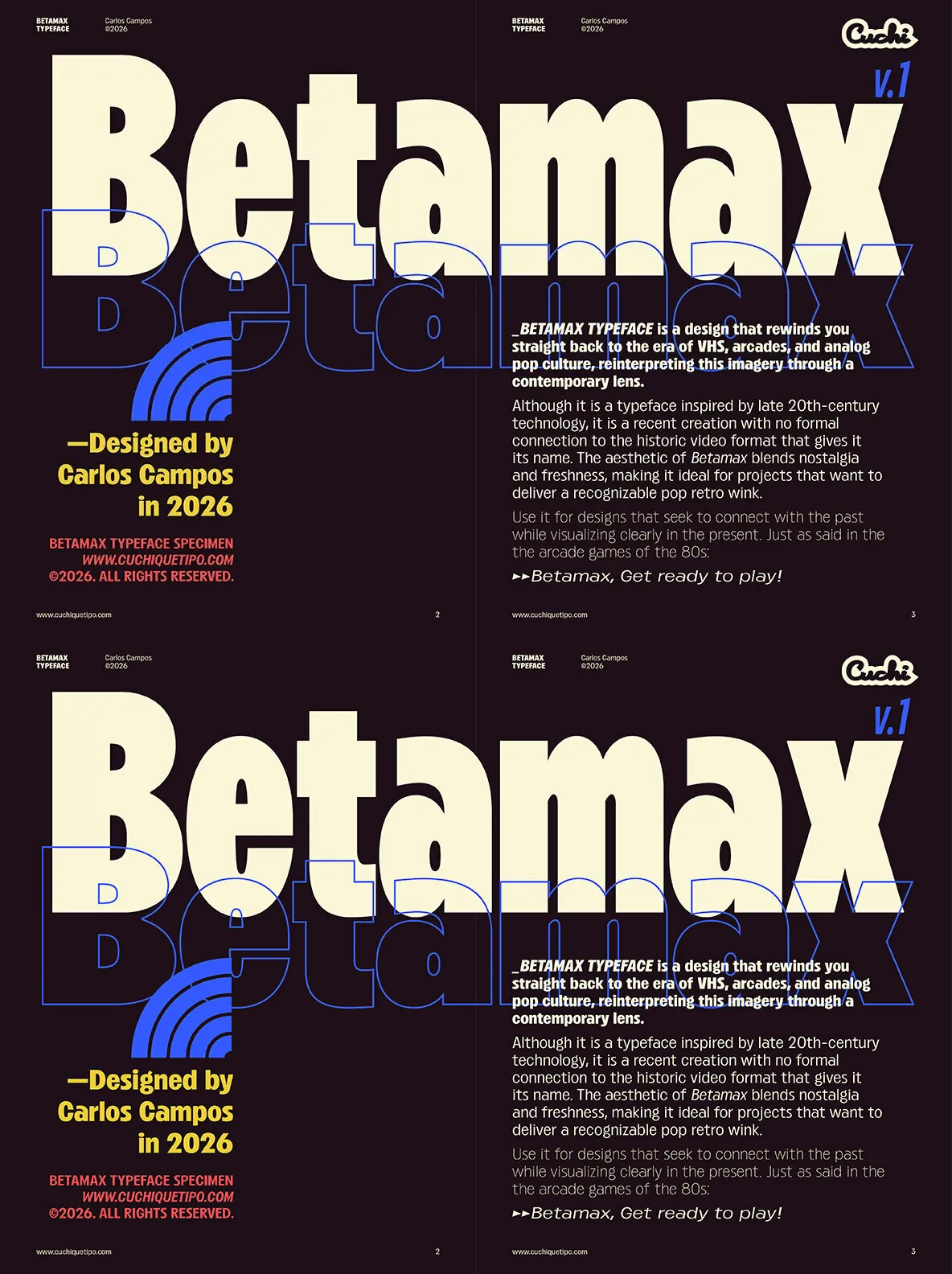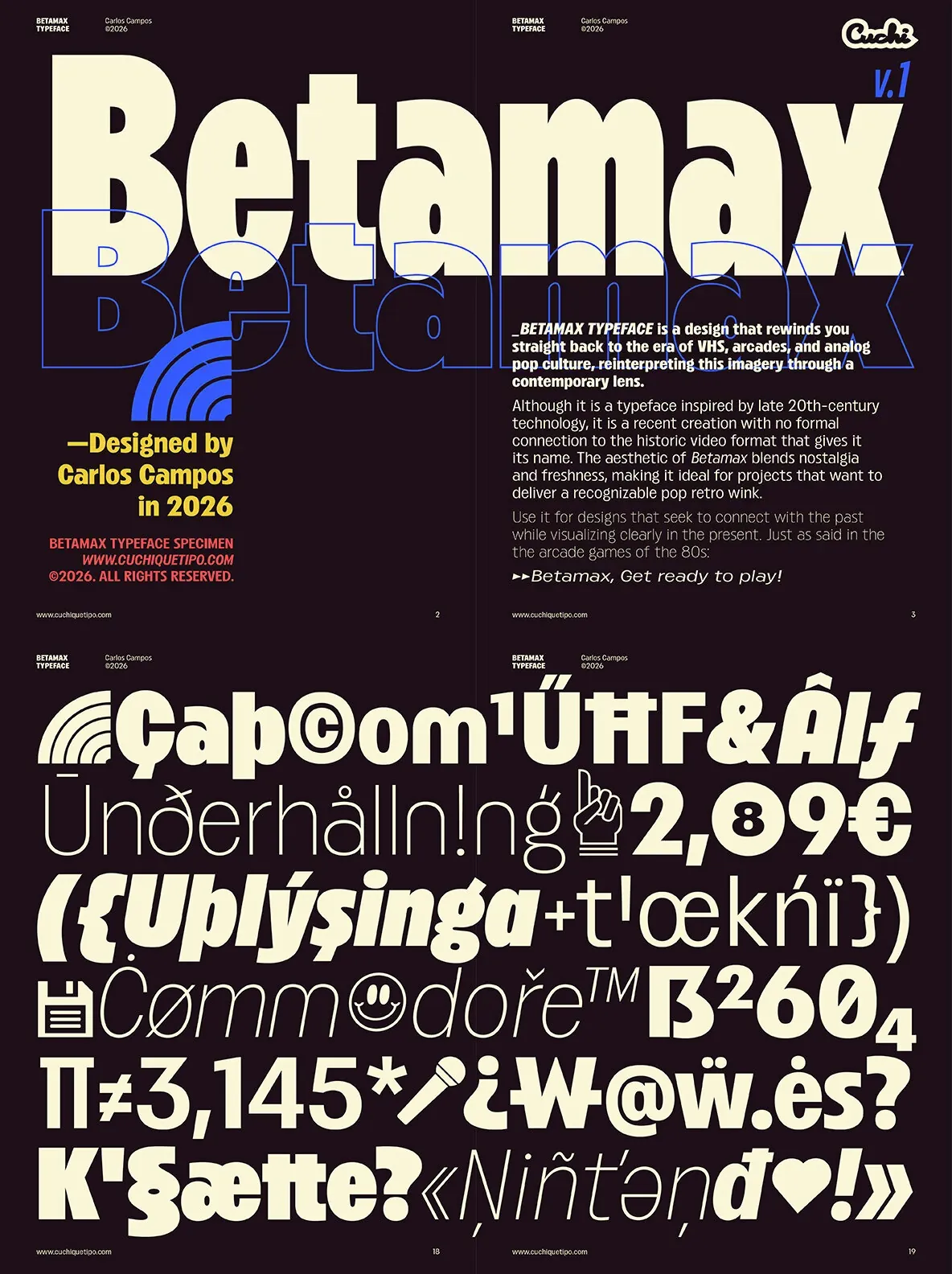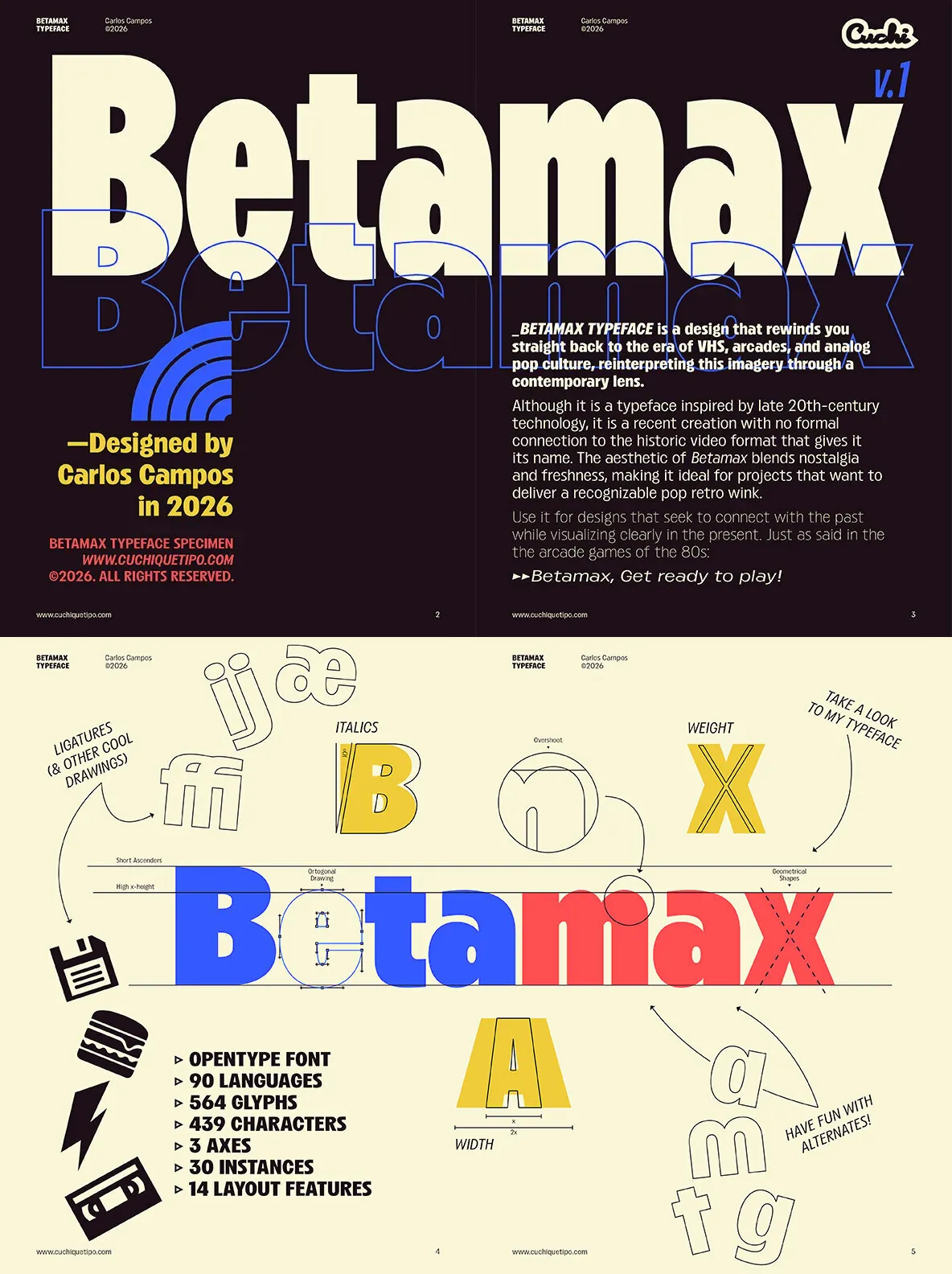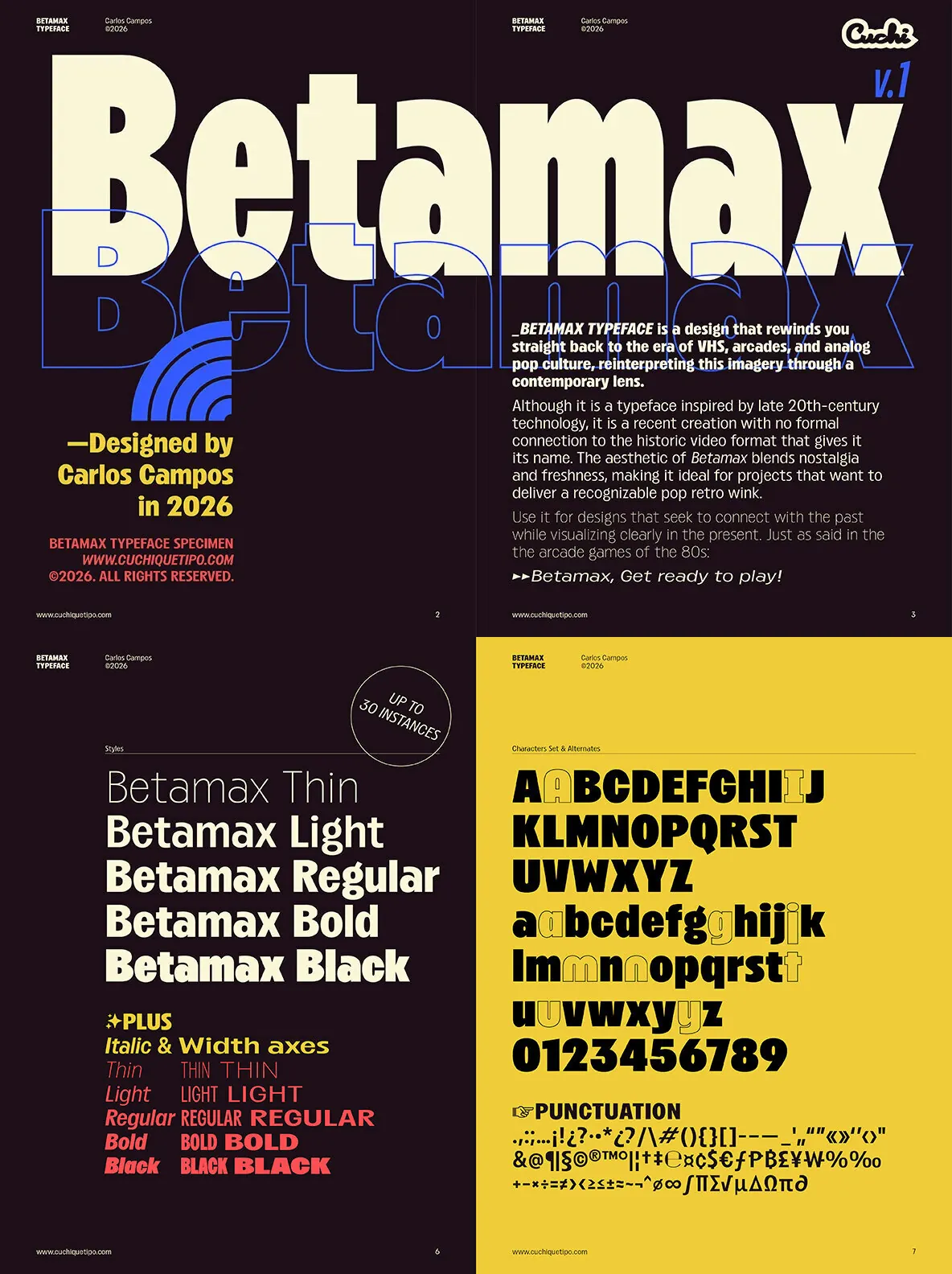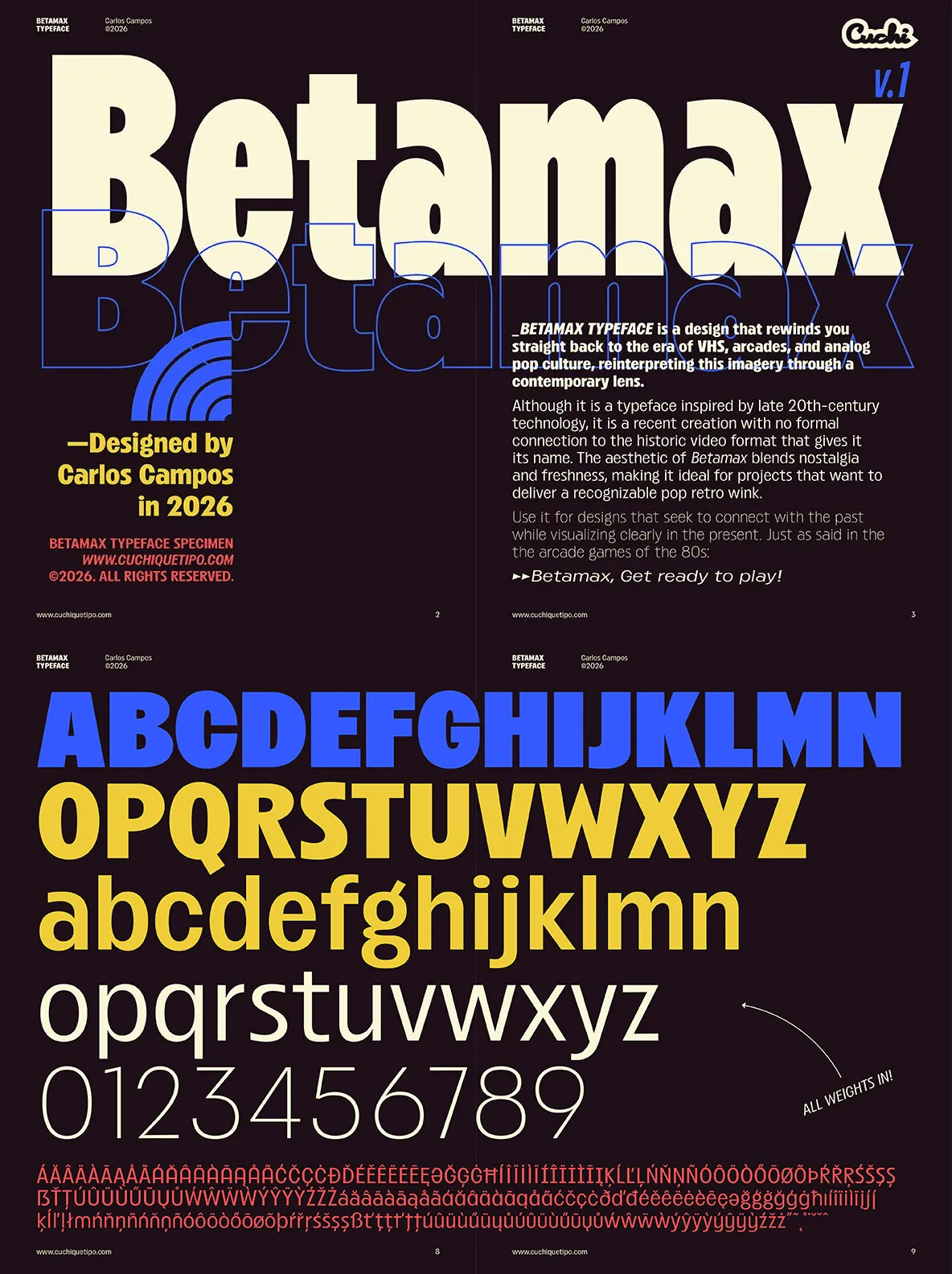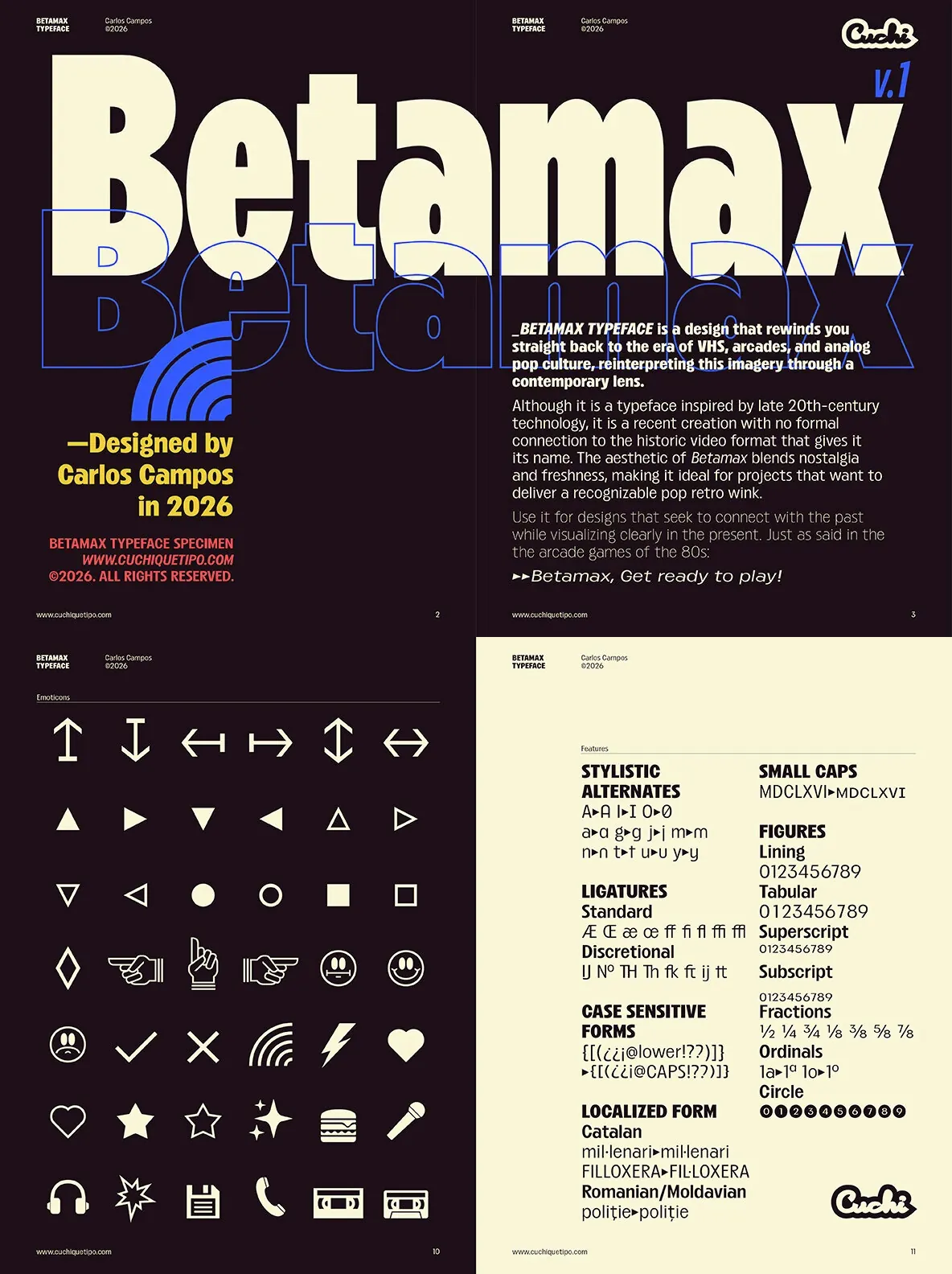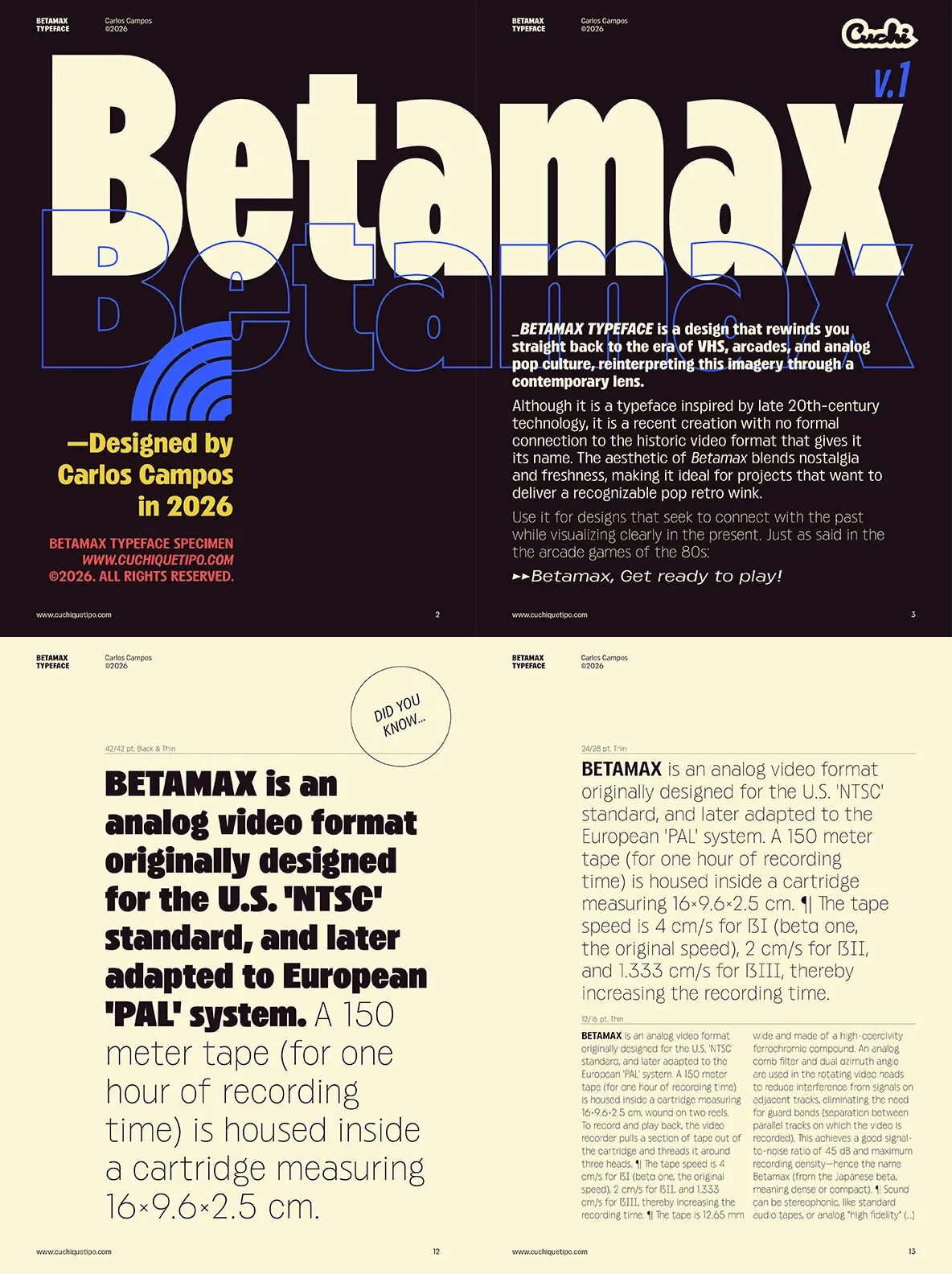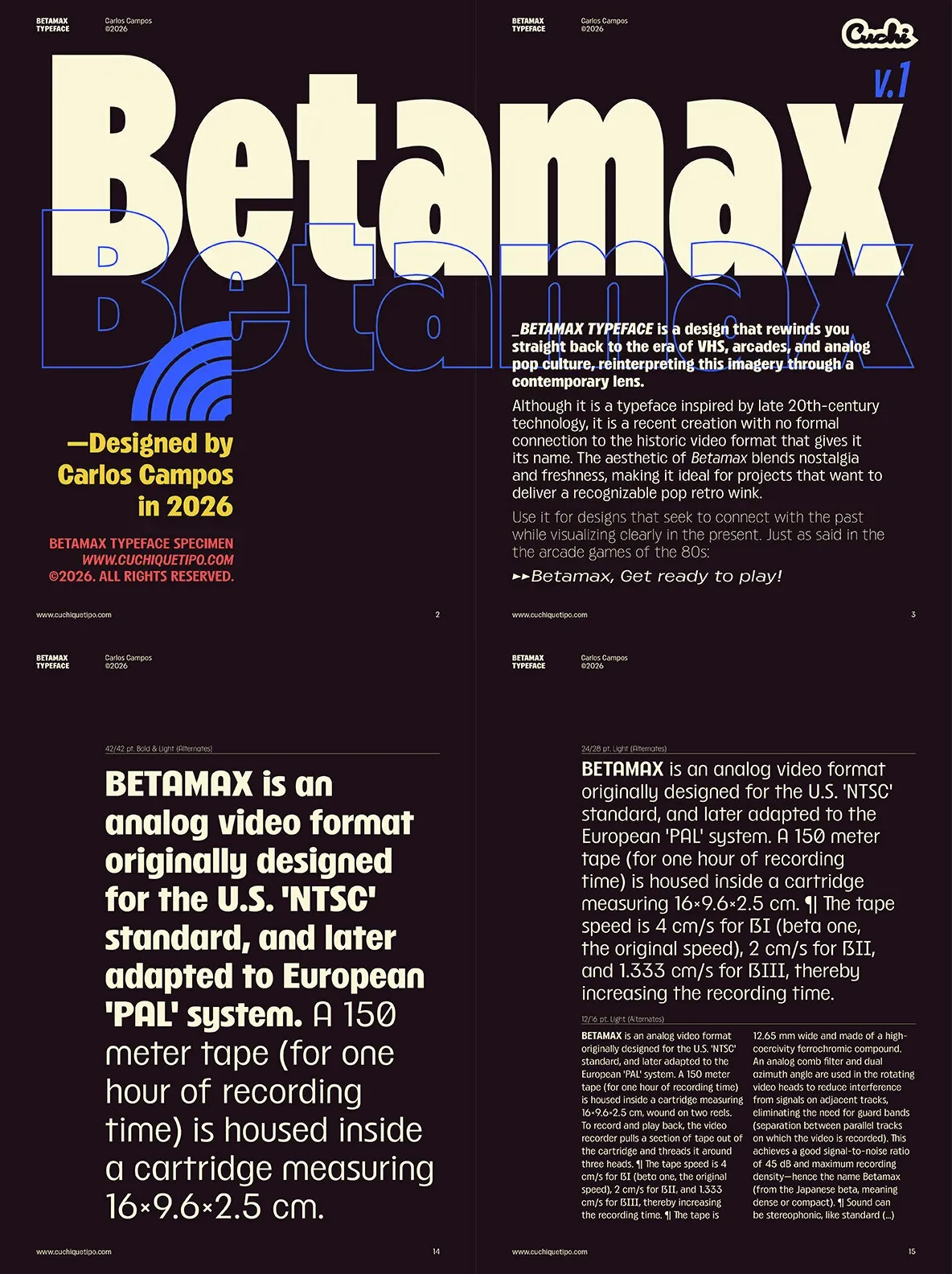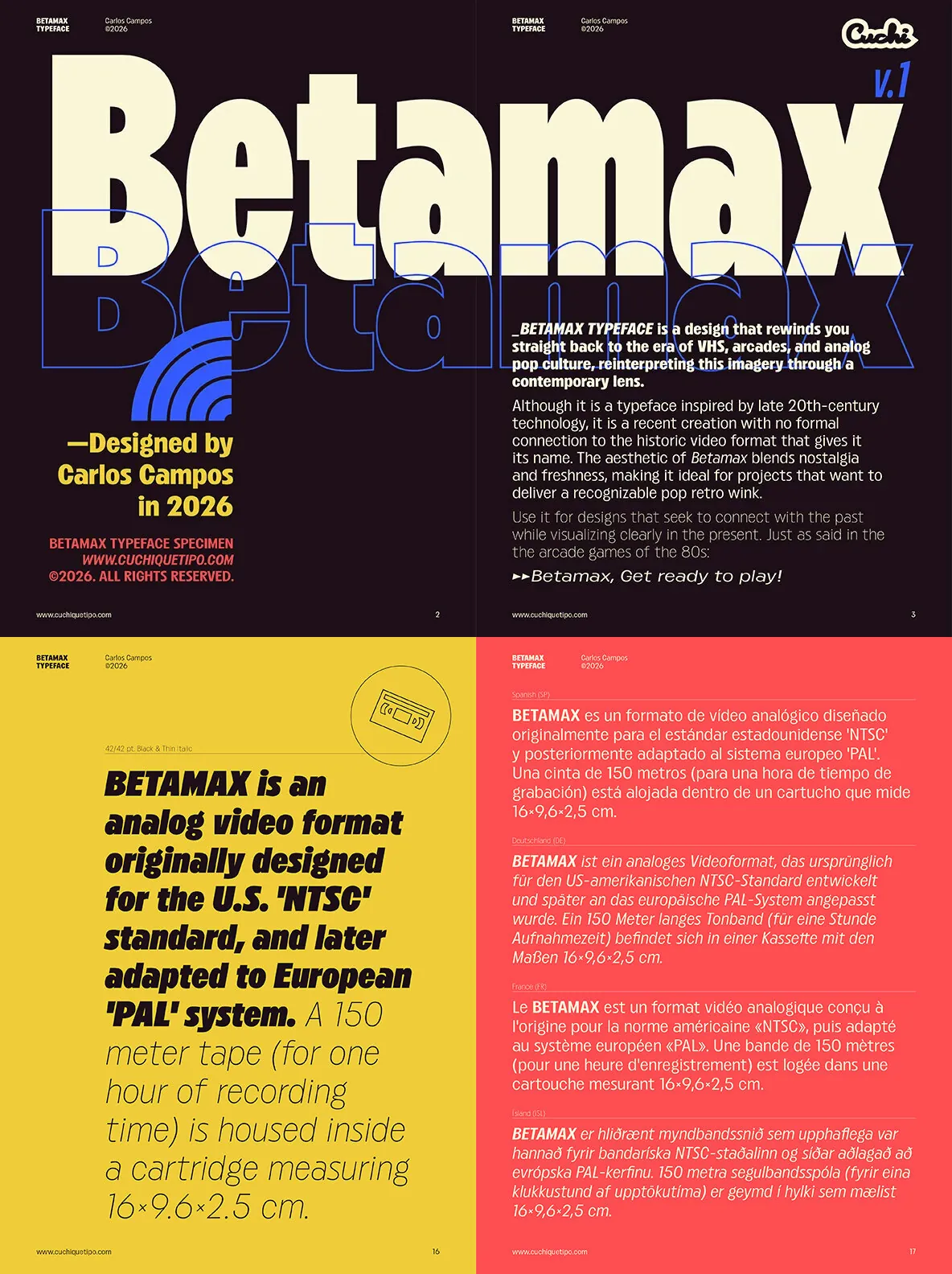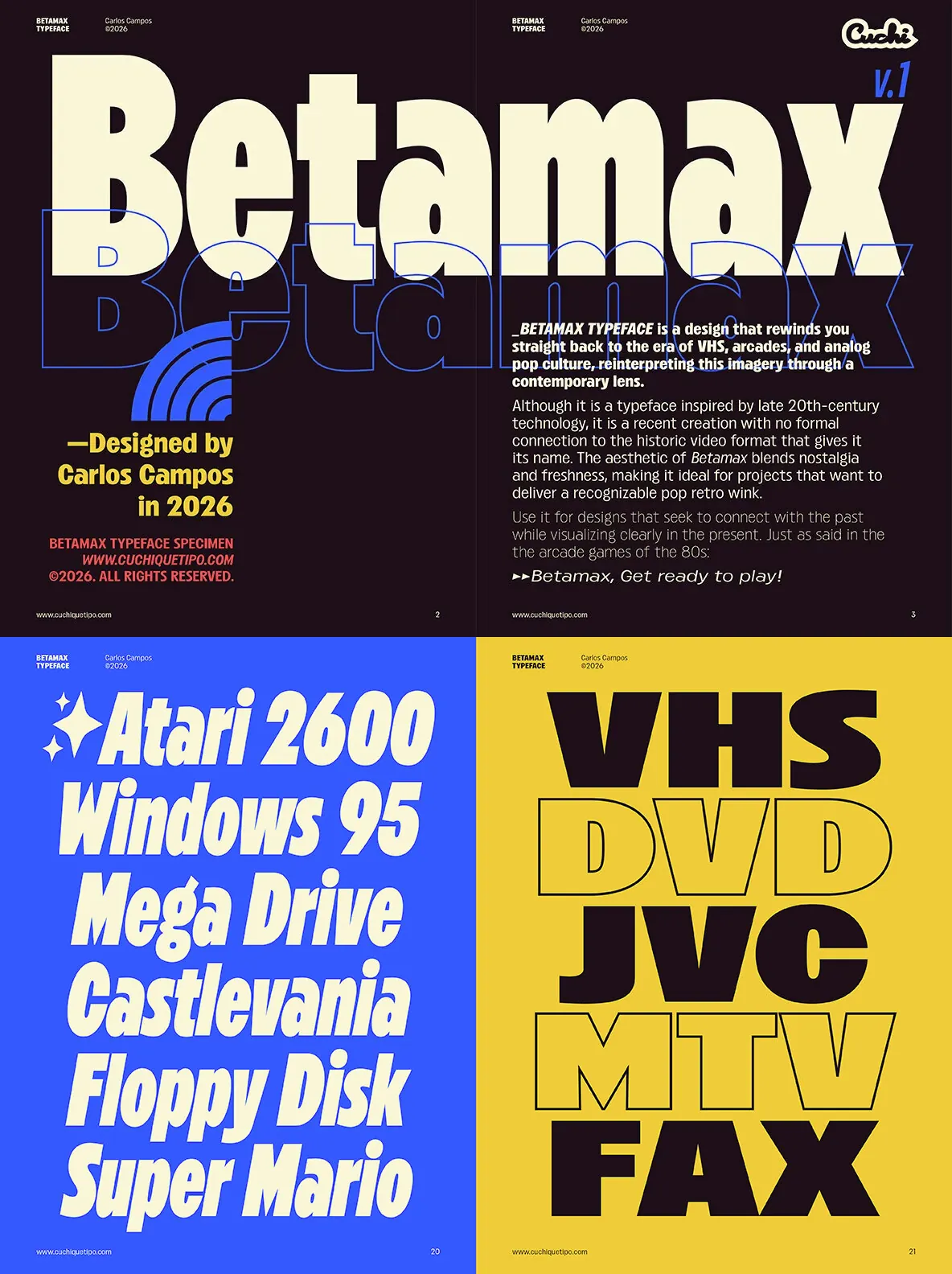
Betamax Font
BETAMAX Typeface: Retro Aesthetics for Contemporary Design
BETAMAX typeface channels the spirit of the VHS era, arcades, and analog pop culture, reimagining these influences through a modern perspective. Rooted in late 20th-century technology, BETAMAX is a recent creation with no direct ties to the original video format that inspired its name.
The design balances nostalgia with a fresh approach, making it well suited to projects aiming to evoke a clear pop retro sensibility. This typeface performs well in applications that seek to establish a visual link to the past while maintaining clarity and relevance in present-day contexts.
Much like the iconic arcade games of the 1980s, BETAMAX invites you to engage with its distinct style and dynamic character.
Features:
564 glyphs
439 characters
3 axes of variation
30 instances
14 layout features
Supports 90 languages